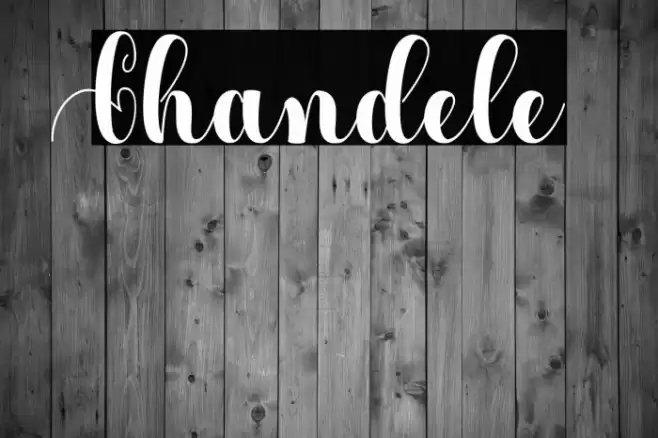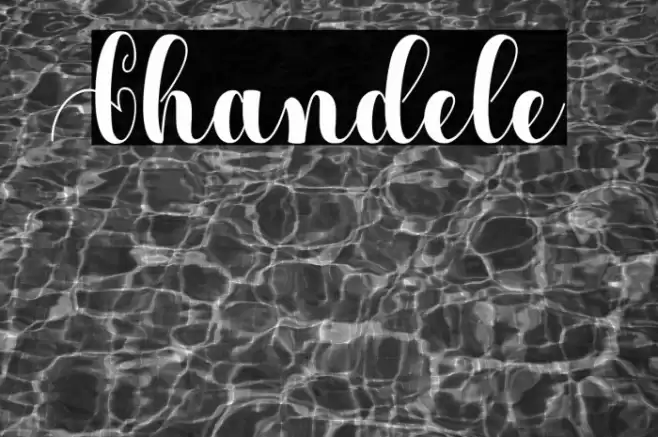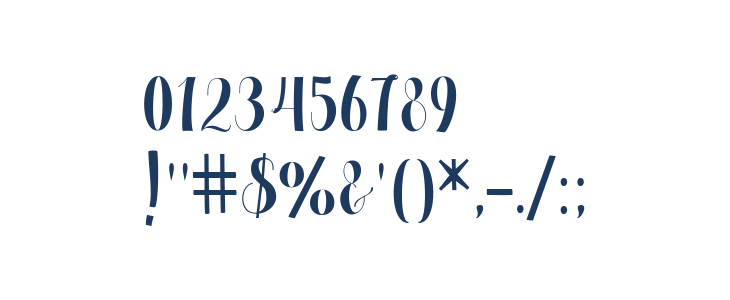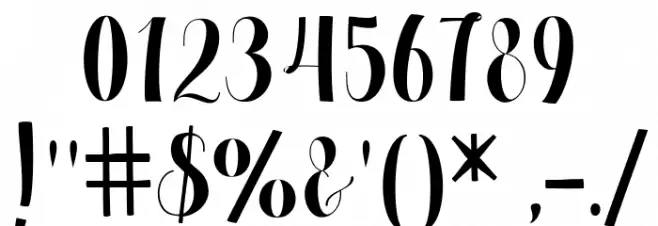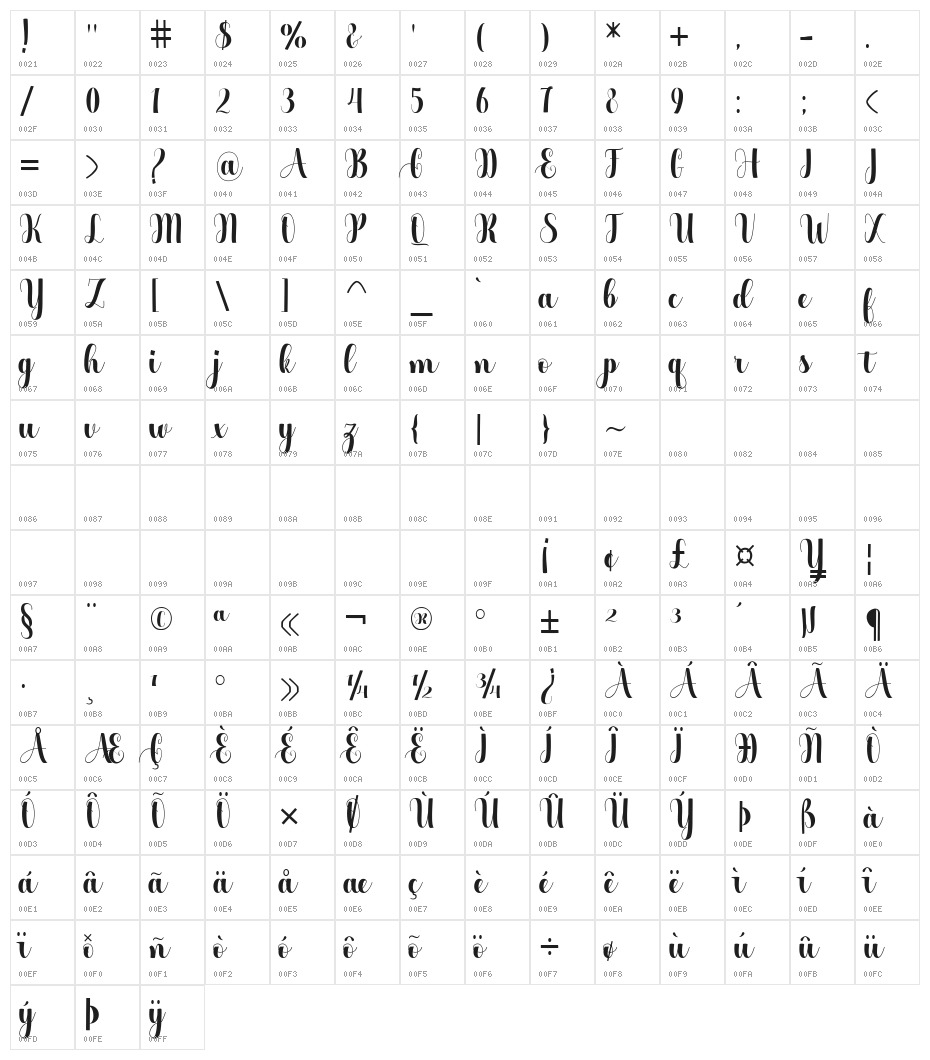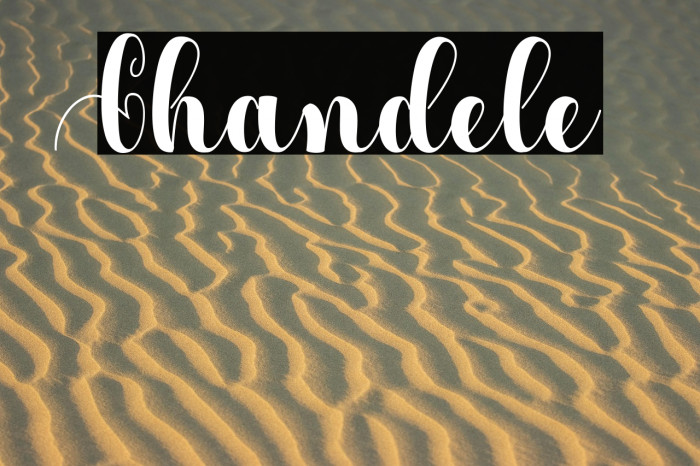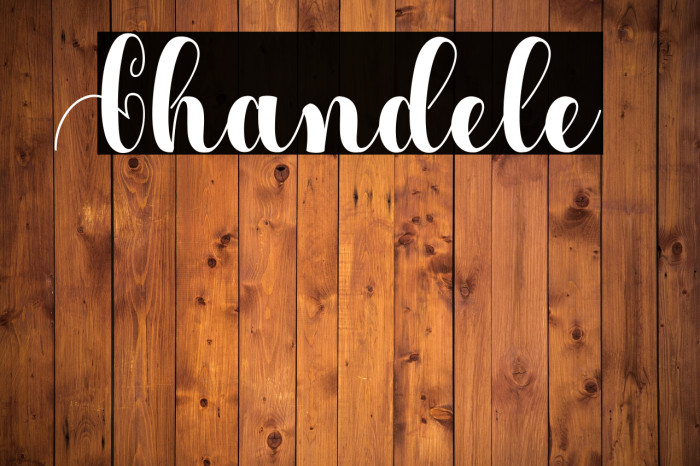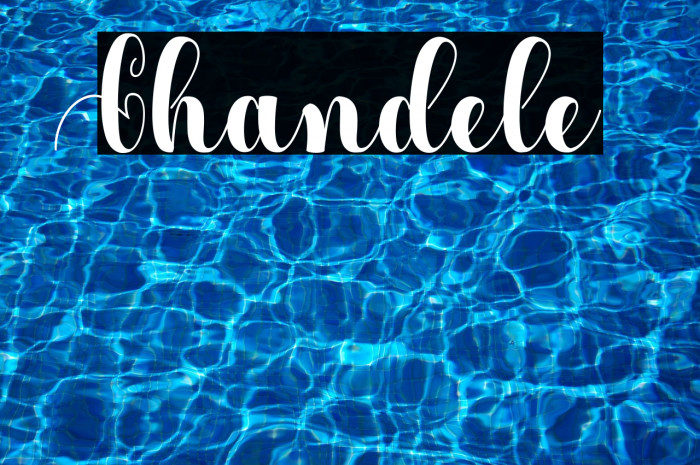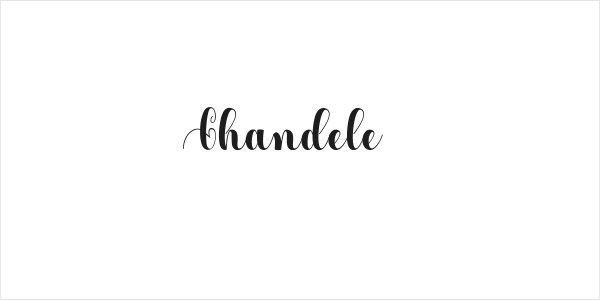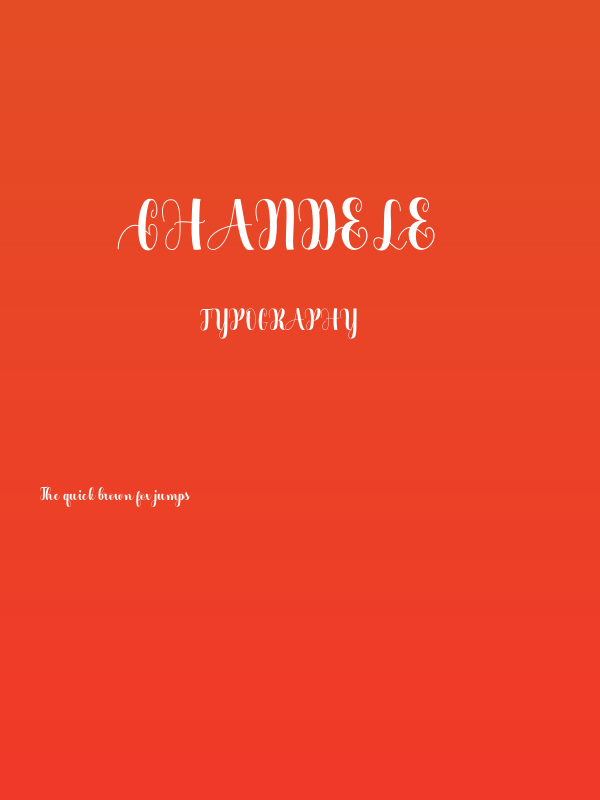
Chandele Font
Chandele Description
This elegant script font features a flowing, cursive style with intricate swashes and loops that give it a sophisticated and decorative appearance. The uppercase letters are particularly ornate, with extended flourishes that add a touch of drama and elegance. The lowercase letters maintain a consistent style, offering a smooth and connected look that enhances readability while retaining the decorative flair. The numerals and special characters are designed to match the overall aesthetic, ensuring a cohesive look across all text elements. This font is perfect for projects that require a touch of elegance and sophistication, such as wedding invitations, luxury branding, or high-end product packaging.
An elegant script font with flowing, decorative swashes and loops from Regular fonts.
- Proposed Projects: Ideal for wedding invitations, luxury branding, and high-end product packaging.
- Use Case: Logos, Invitations, Branding